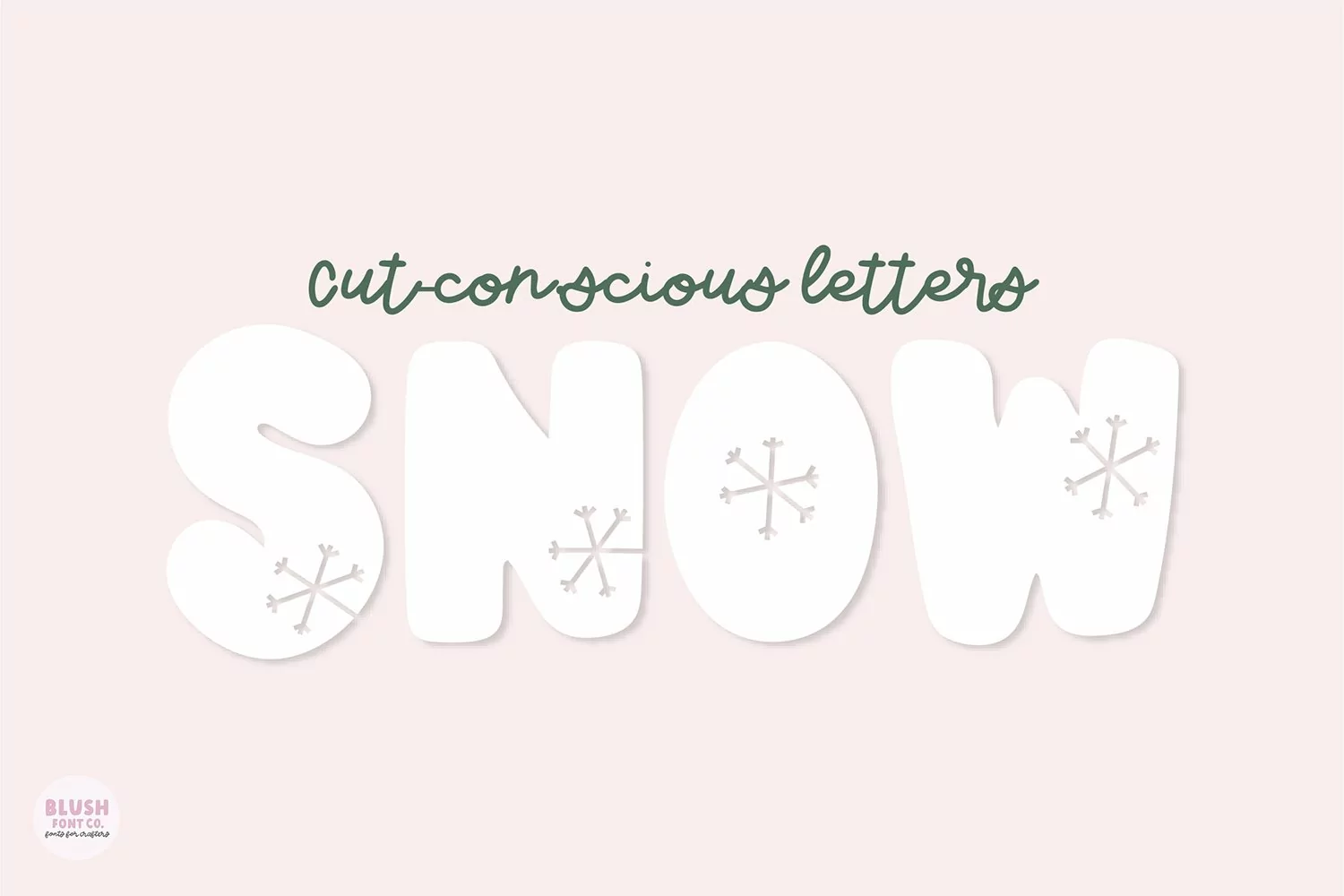
"Snow Days" Winter Snowflake Display Font
Snow Days is perfect for your holiday projects. Use it for Christmas cards, winter crafts for decor and more! This font includes all caps letters, numbers, basic punctuation, and intl characters! Including Polish.